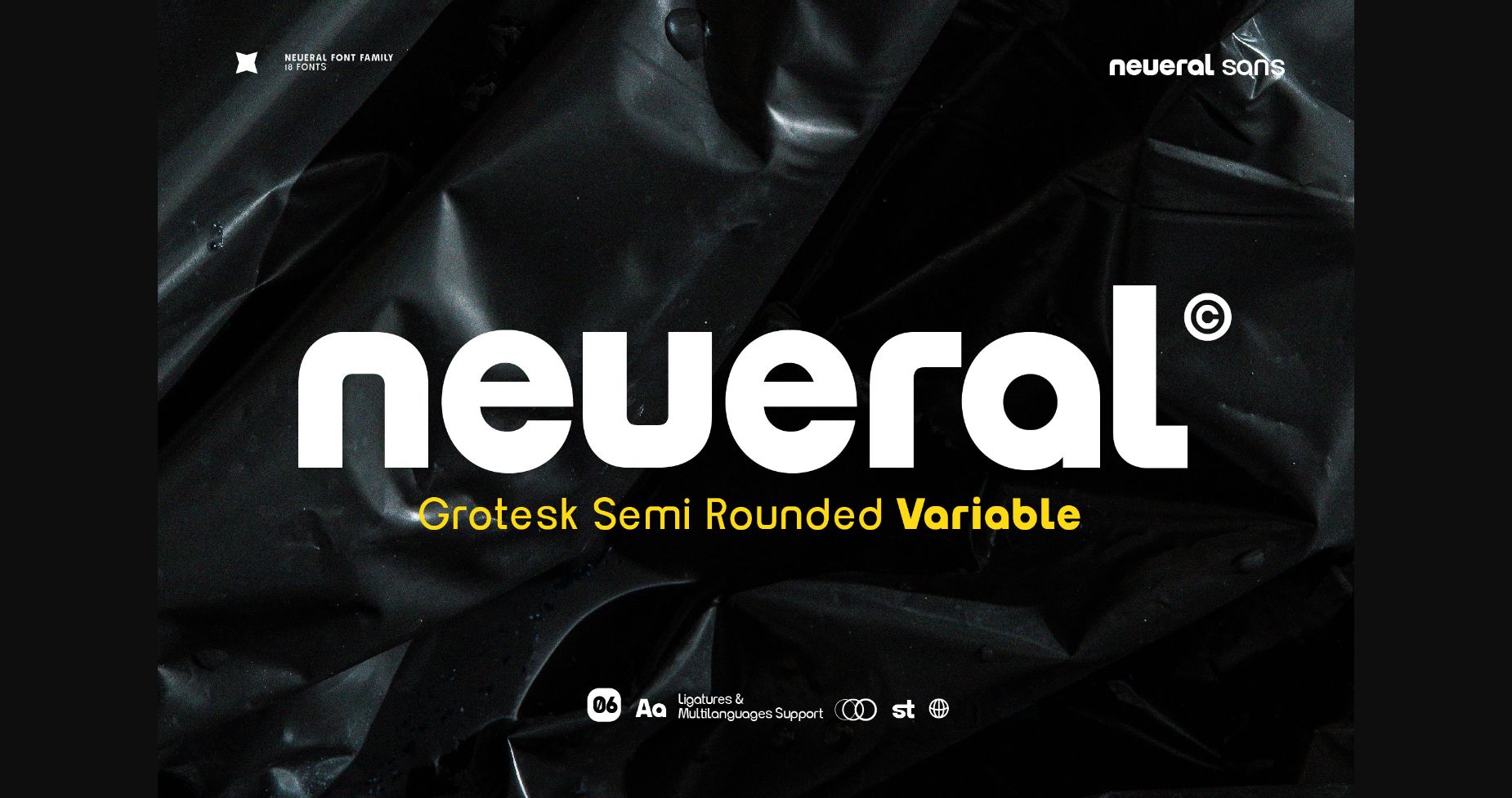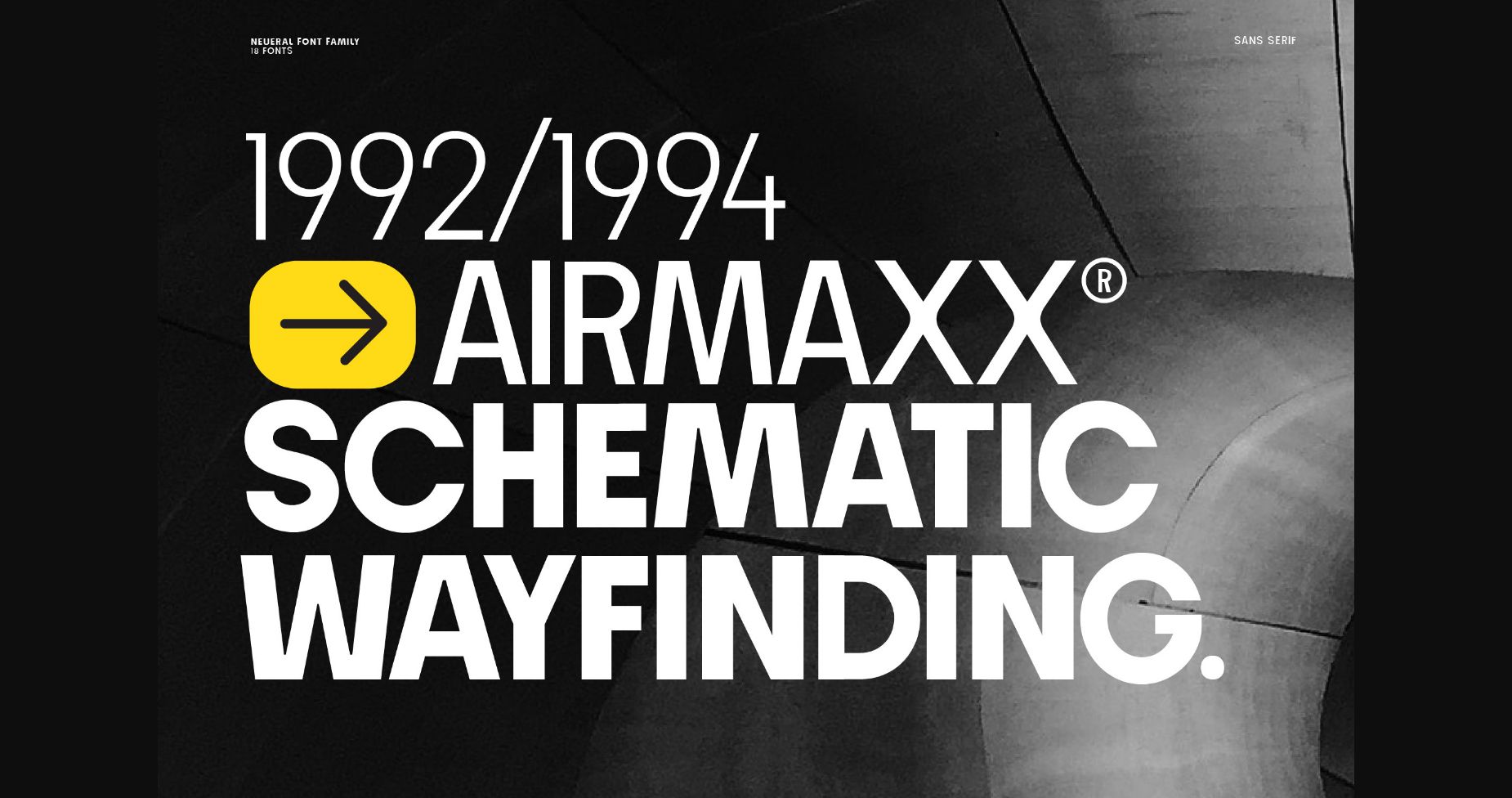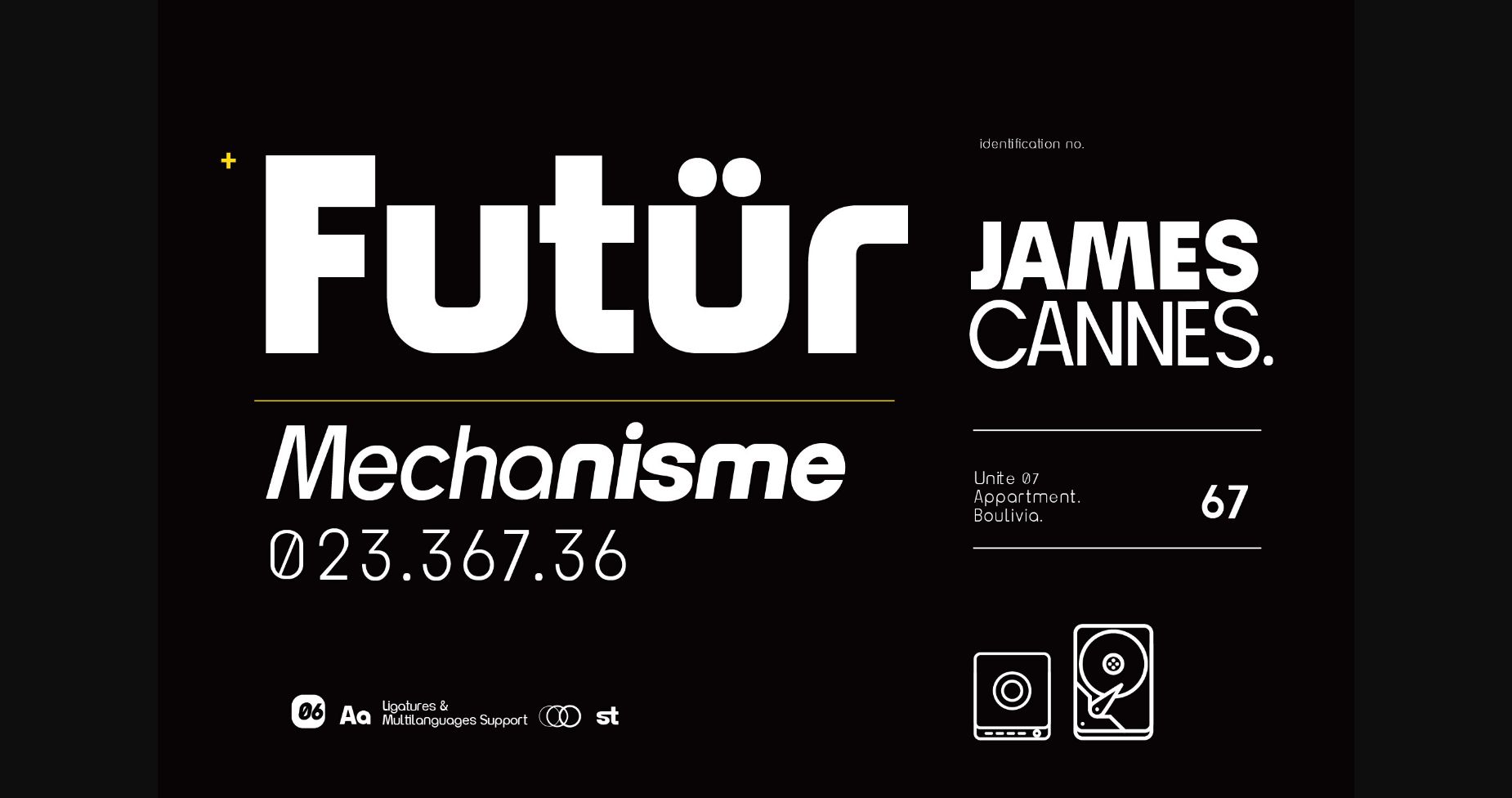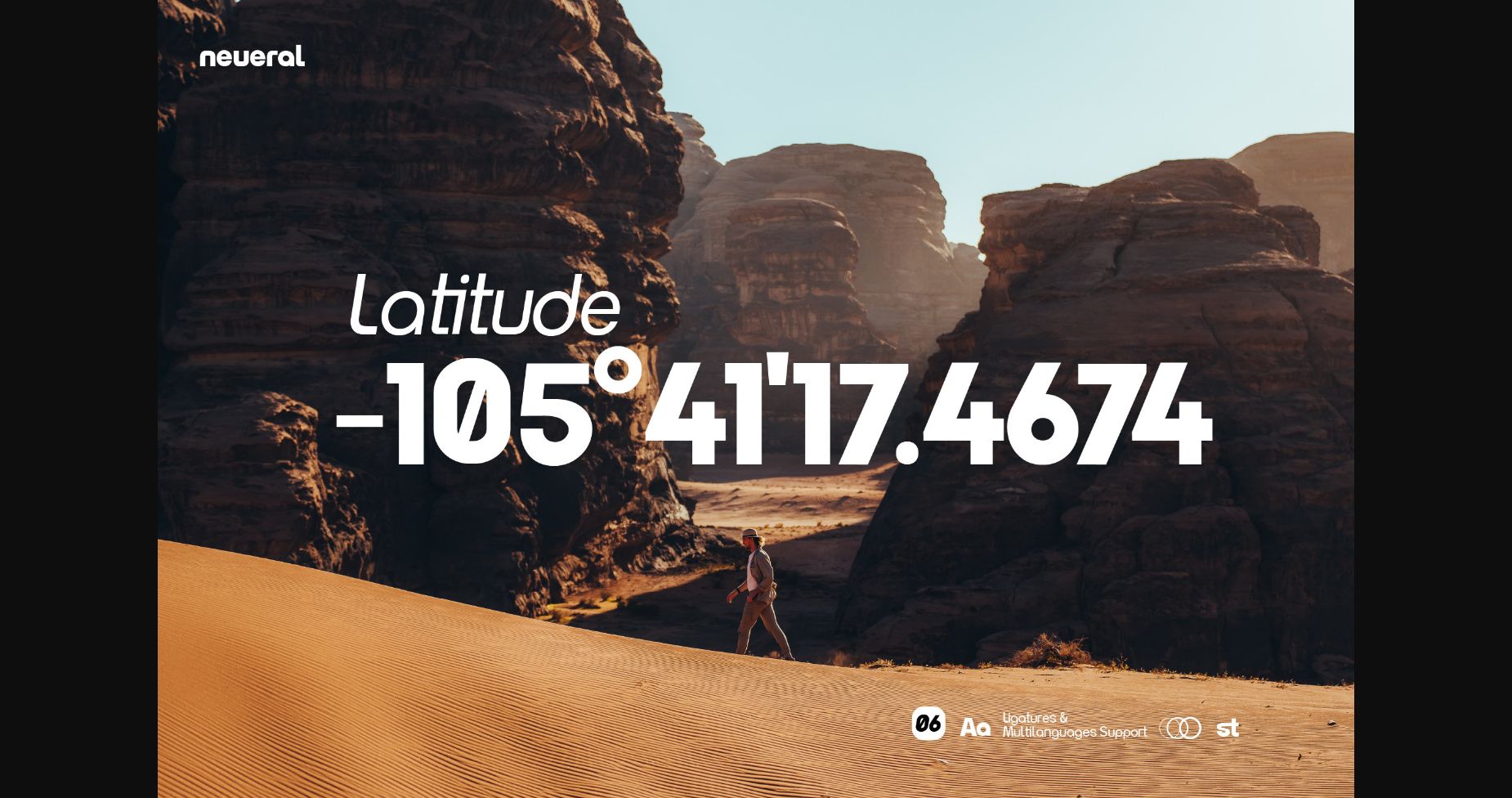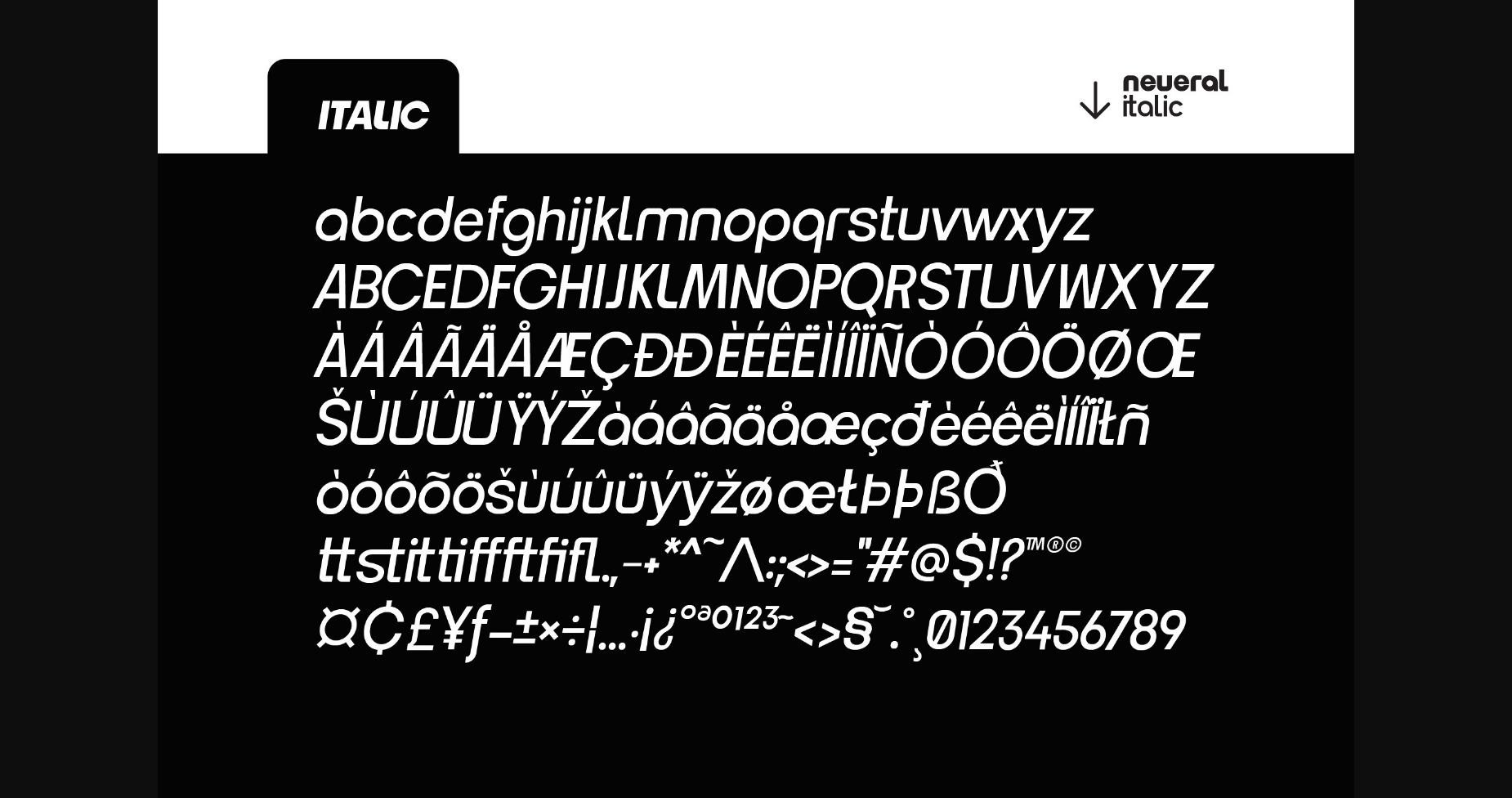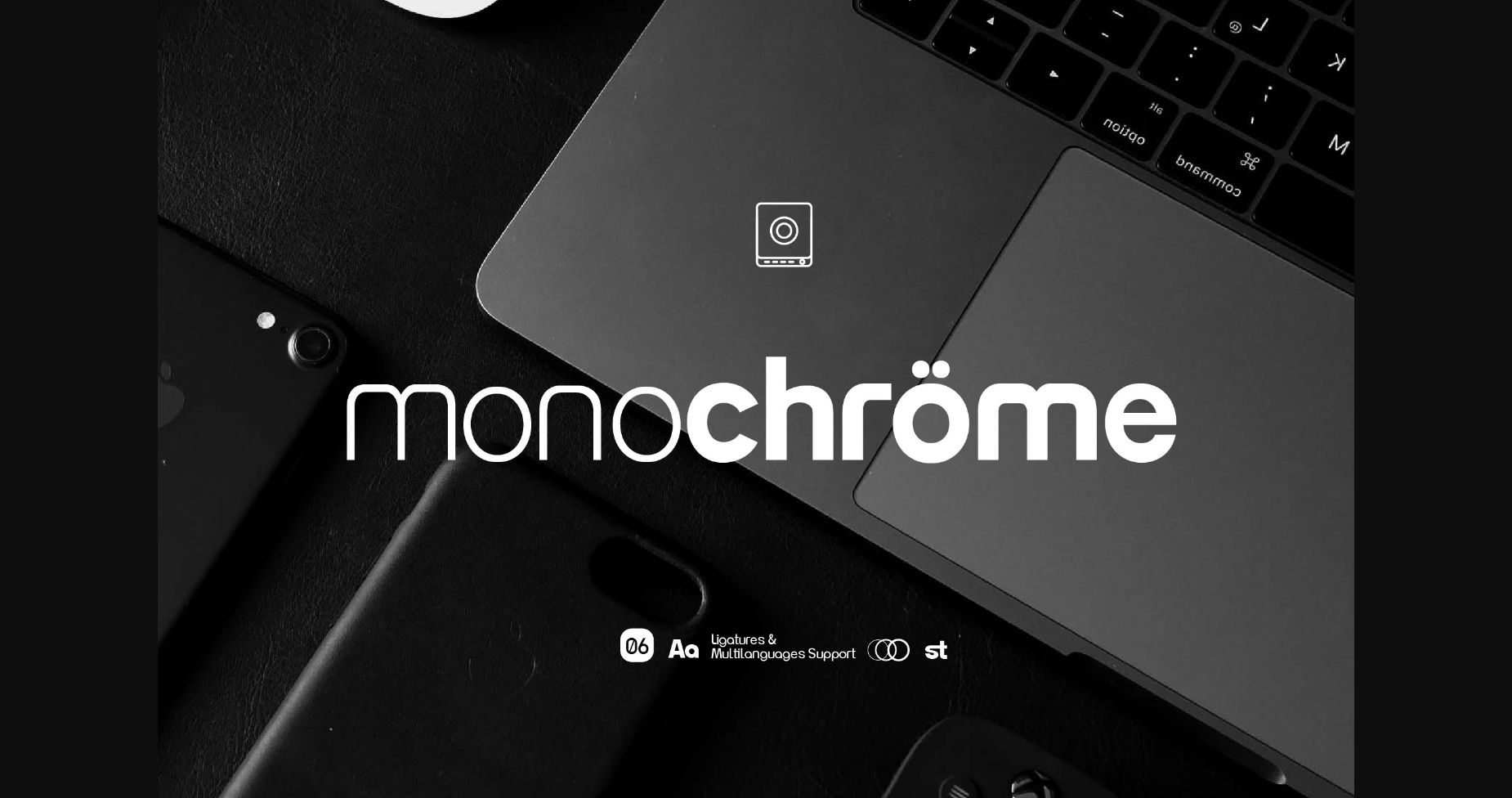
About Neueral Grotesk Variable Font
Neueral, a versatile semi-round and geometric sans serif font, embodies flexibility and modernity in every glyph. With its neutral and functional design, it’s ideal for crafting logos, articles, wayfinding systems, branding, business cards, and more. The font family offers 18 variations, including Latin simple ligatures, ensuring a diverse range of typographic possibilities.
FEATURES:
-19 weights regular & italic version
-Standard Ligatures & Discretionary Ligatures
-Numerals & Punctuation
-Fractions, Superscript & Subscript
-Multiple Latin Languages Supported